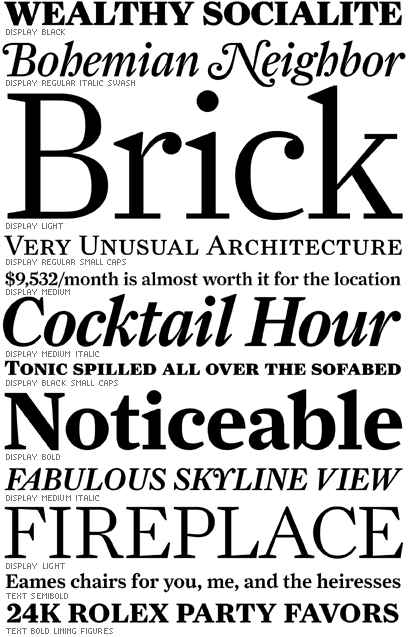
Farnham
German-born punchcutter Johann Fleischman, contemporary of Baskerville and Fournier, worked at the Enschede Foundry in Haarlem. Expert in advanced tools and the qualities of fine steel, he pushed beyond the frontiers of his time, cutting active typefaces famous worldwide for their “sparkle.” Christian Schwartz focused on Fleischman’s exuberant angularity, carrying it to all weights of his new Farnham series: FB 2004.